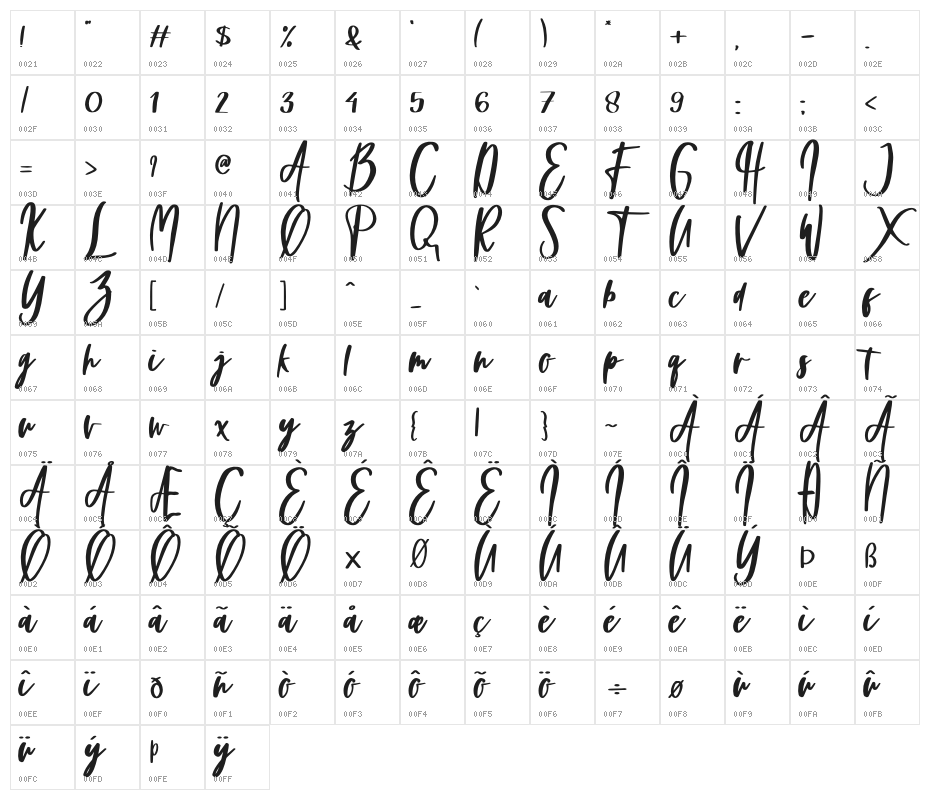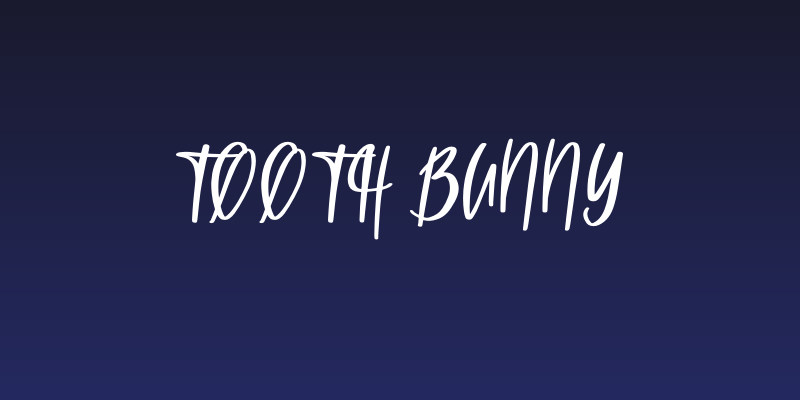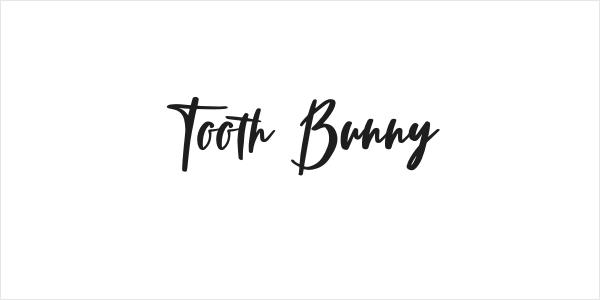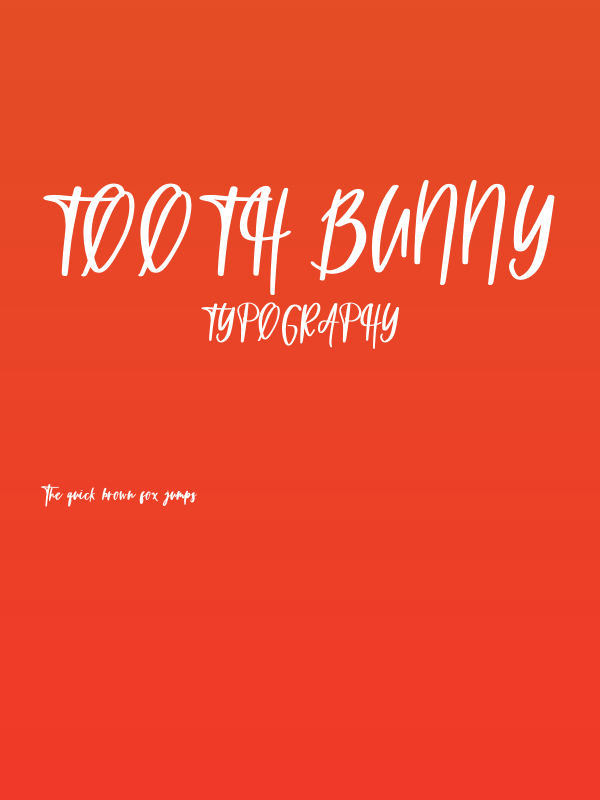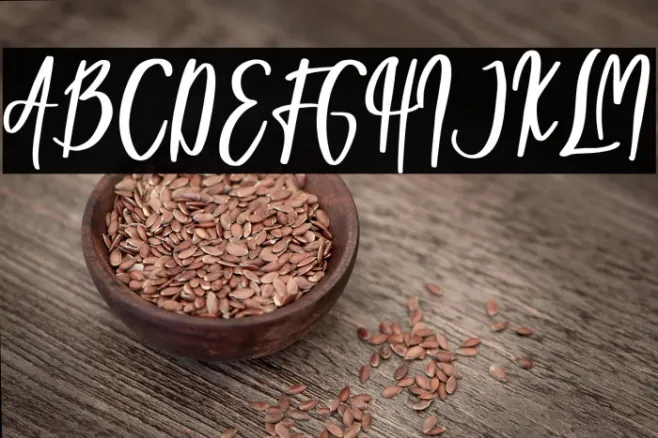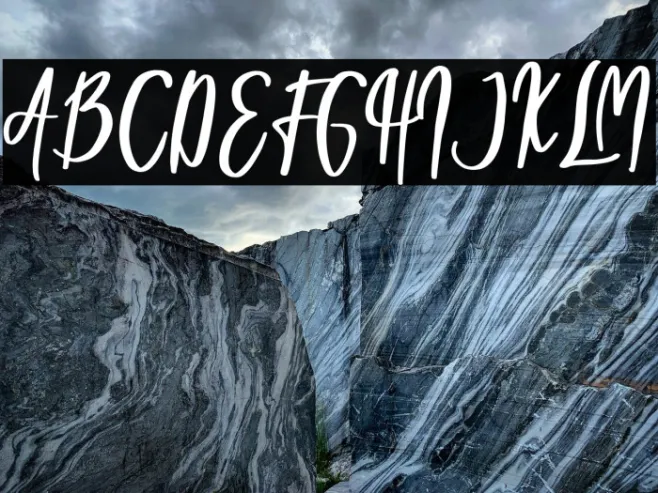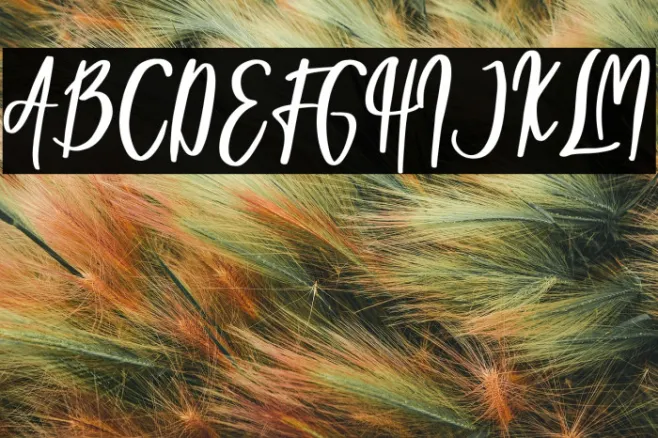
Tooth Bunny Font
Tooth Bunny Description
A bold, handwritten script font with a playful and dynamic style, featuring irregular strokes and a casual appearance.
| Overall Style | Playful, Casual |
| Proposed Projects | Greeting cards, invitations, posters, branding. |